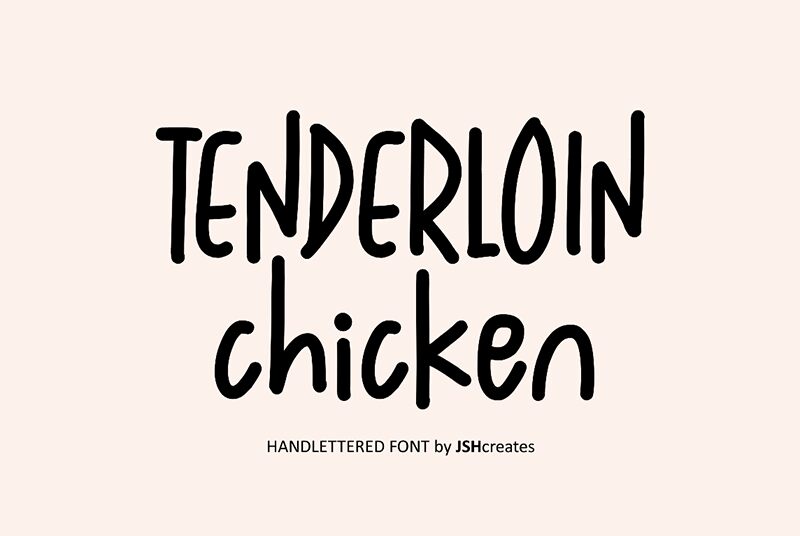
Tenderloin Chicken
Tenderloin Chicken is a casual handwritten script font designed and shared by JSH creates.
With its relaxed and whimsical style it is suitable for any handwritten, handwritten art related project, or designs with a human touch. Use Tenderloin Chicken font to create creative logotypes, logos and branding designs, quotes and texts, and for social media graphics. You can also use this font for children related designs and for greeting card projects.